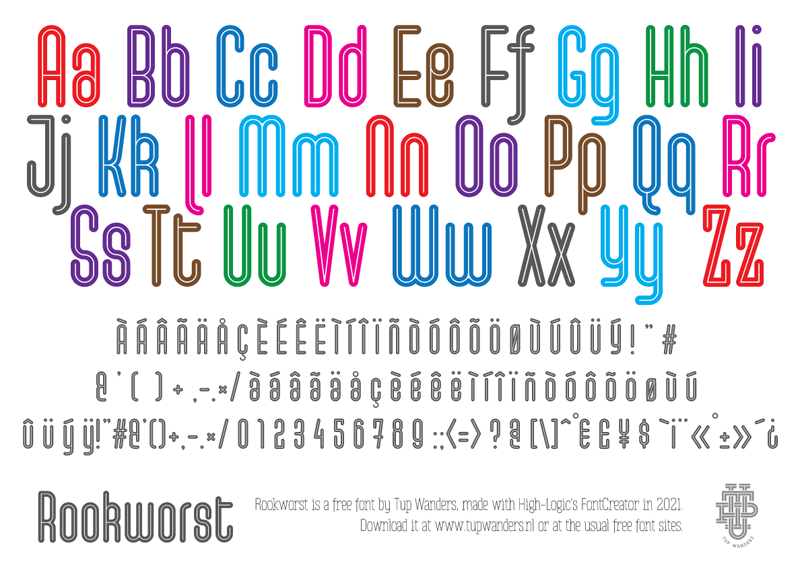
Font name: | Rookworst |
Author: | Tup Wanders |
Note by Tup Wanders | |
This one started when I was playing a city building game and started making letters using its road texture. It's a bit sausagey as well :) |